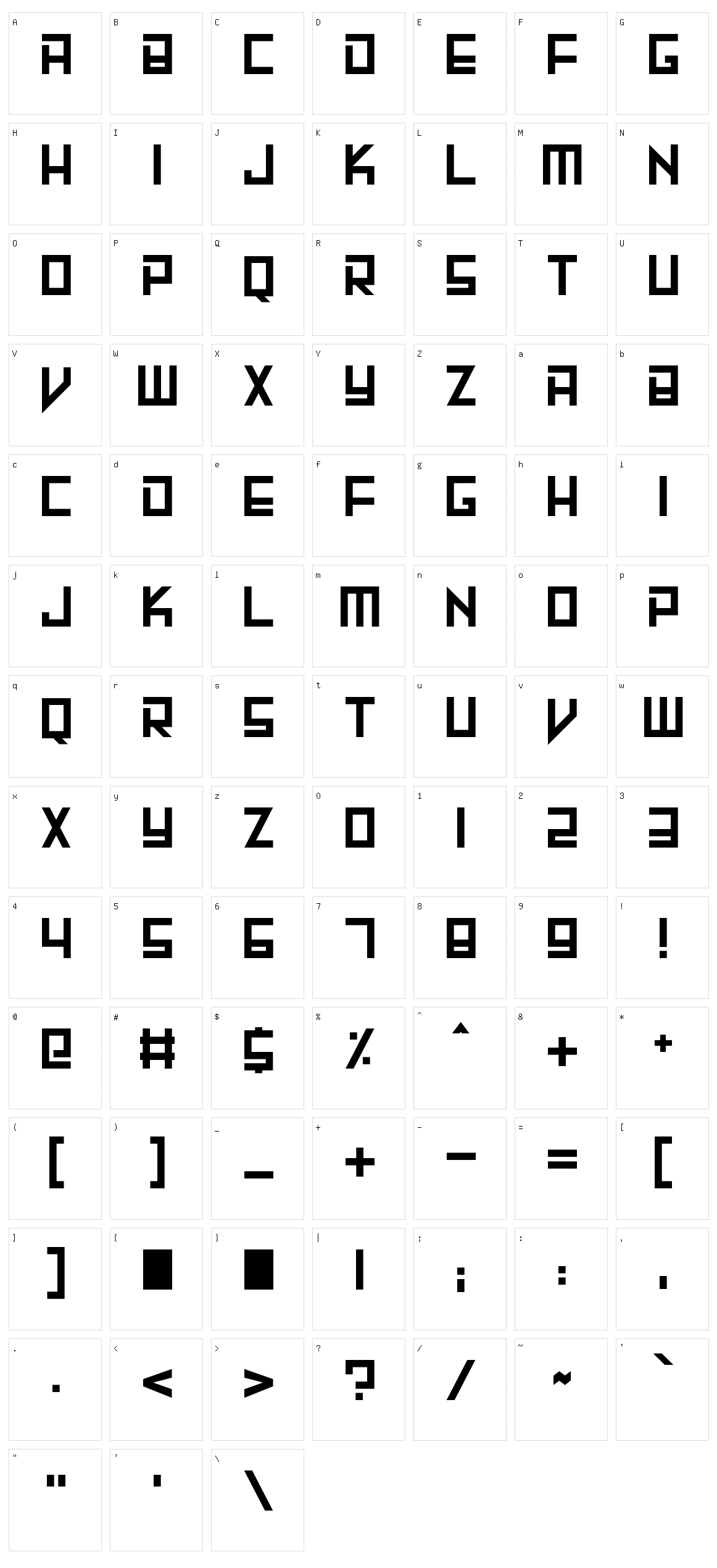
The free font Machine Madness is carefully designed by Hawtpixel, showcasing a thoughtful balance of creativity and usability and falls under the Square font style. When you download the ZIP file, it contains only 12.07 KB of font files, making it lightweight and quick to download. Please review the license details below to understand permitted usage and distribution rights. If license information is not available, we recommend using this font for personal projects only or contacting the author directly for commercial usage permissions.